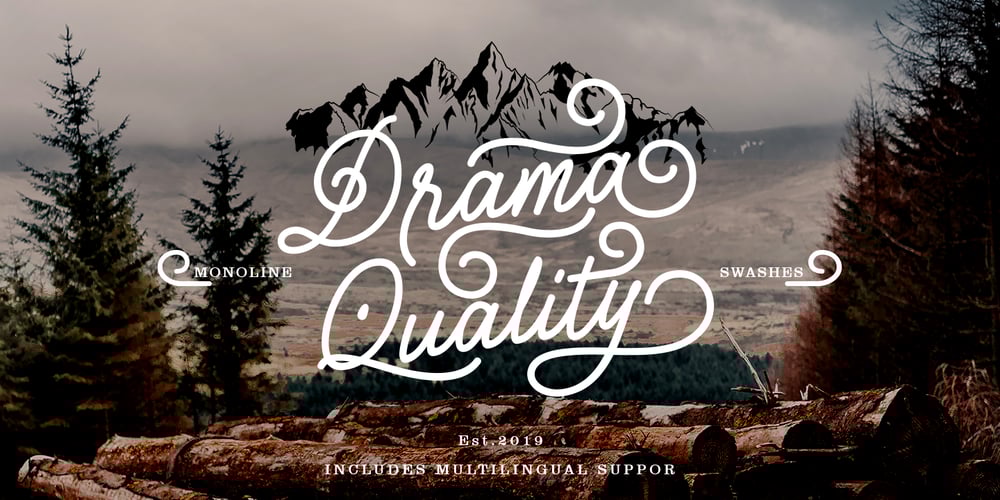
Drama Quality Font Family was designed by Mira Kartika Sari and published by Papermode Co. Drama Quality contains 1 styles and family package options. Introducing Drama Quality, a monoline script typeface with extra features. Drama Quality comes in a handmade style and can perfectly be used as an elegant addition to any logo, invitation, or for product packaging, hand-written quote, greetings card, labels, logos, magazines, books, greeting/wedding cards, packaging, fashion, stationery, novels, labels or any type of advertising purpose.Includes multilingual support and special ligaturesIf you do not have programs that support OpenType features like Adobe Illustrator and CorelDraw X Versions, you can access all alternates using Font Book (Mac) or Character Map (Windows).Thank you!